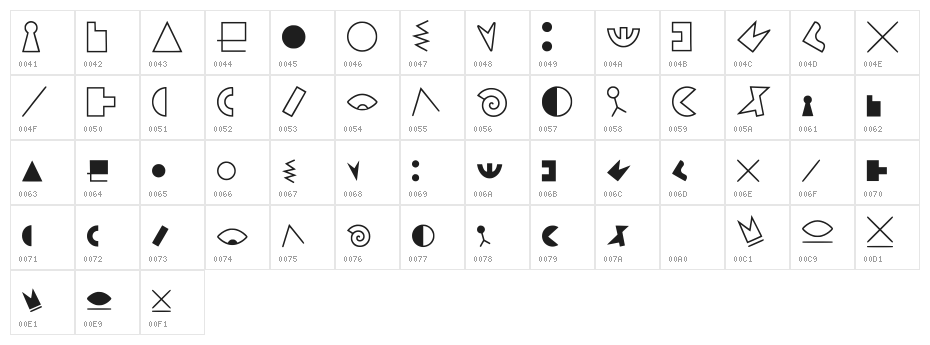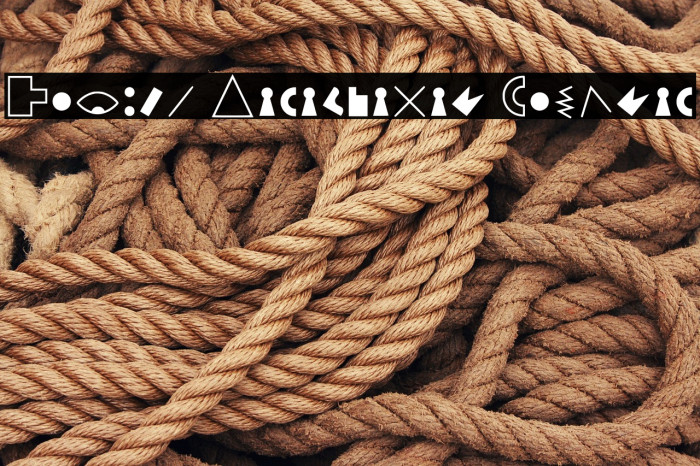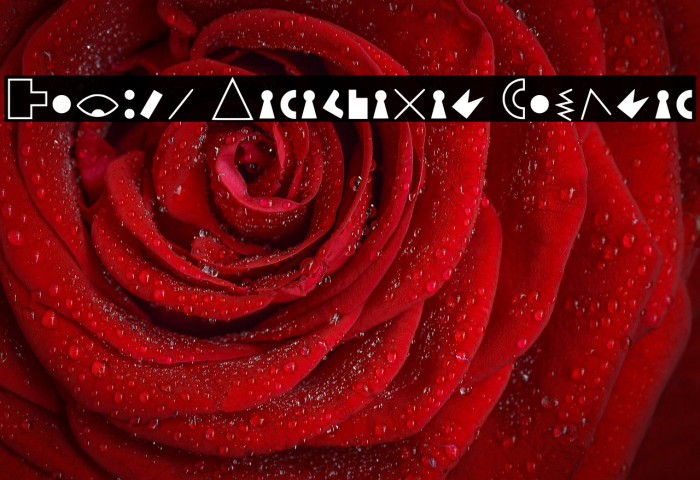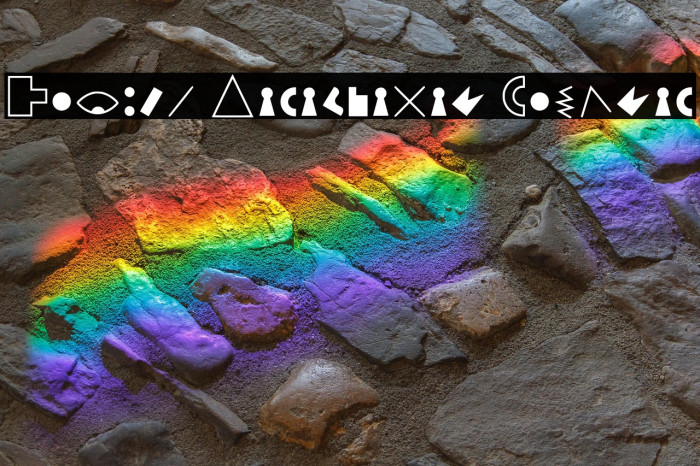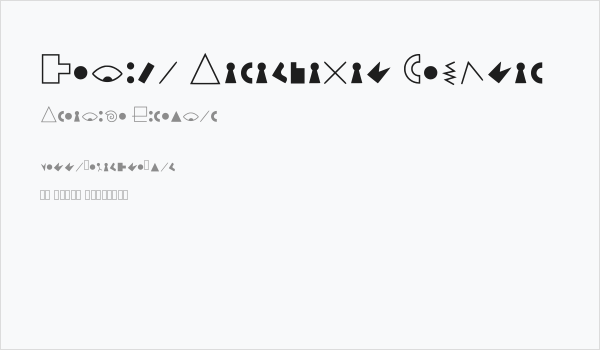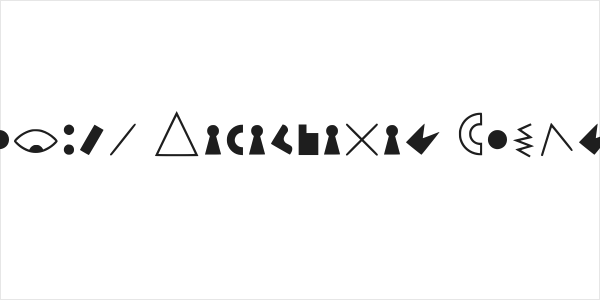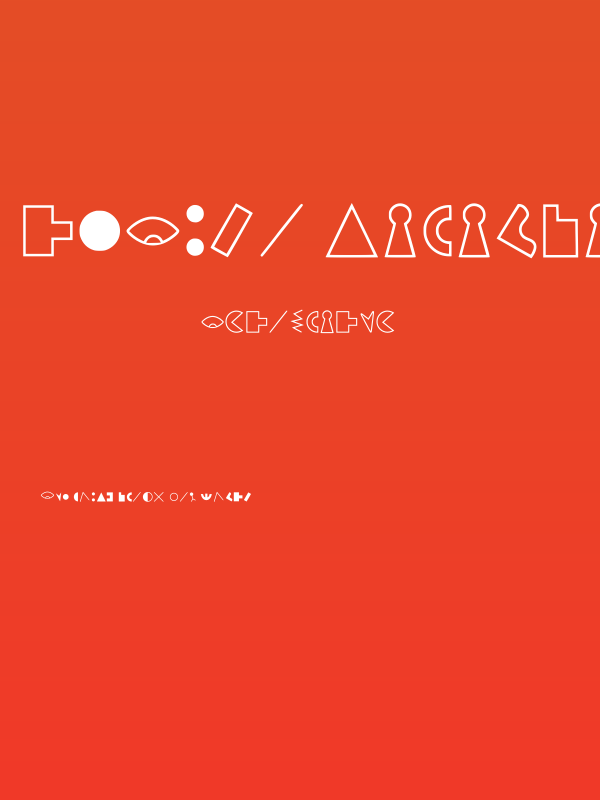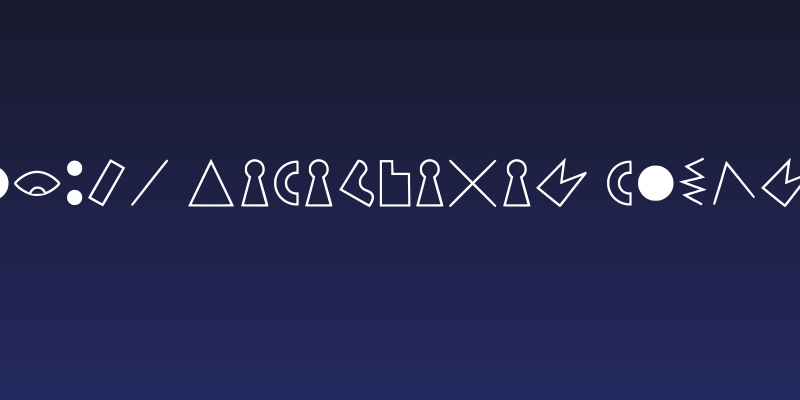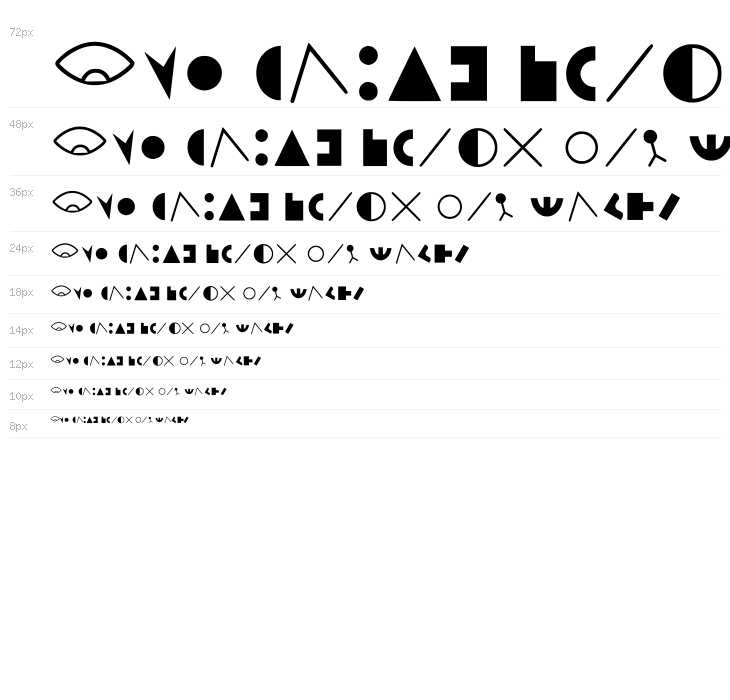
Petiso Carambanal Regular Font
Petiso Carambanal Regular Description
This font is a highly decorative and abstract collection of symbols and shapes, each character resembling a unique geometric or abstract form. The design features a variety of bold, solid shapes such as triangles, circles, and squares, as well as more intricate zigzag and spiral patterns. The characters are distinct and do not resemble traditional alphanumeric characters, making it ideal for artistic or thematic projects. The boldness of the shapes suggests a strong visual presence, while the variety of forms offers a playful and creative aesthetic.
| Use Case | Logos, Artistic designs, Posters |
| Proposed Projects | Ideal for artistic designs, creative posters, thematic branding, or any project requiring a unique visual identity. |